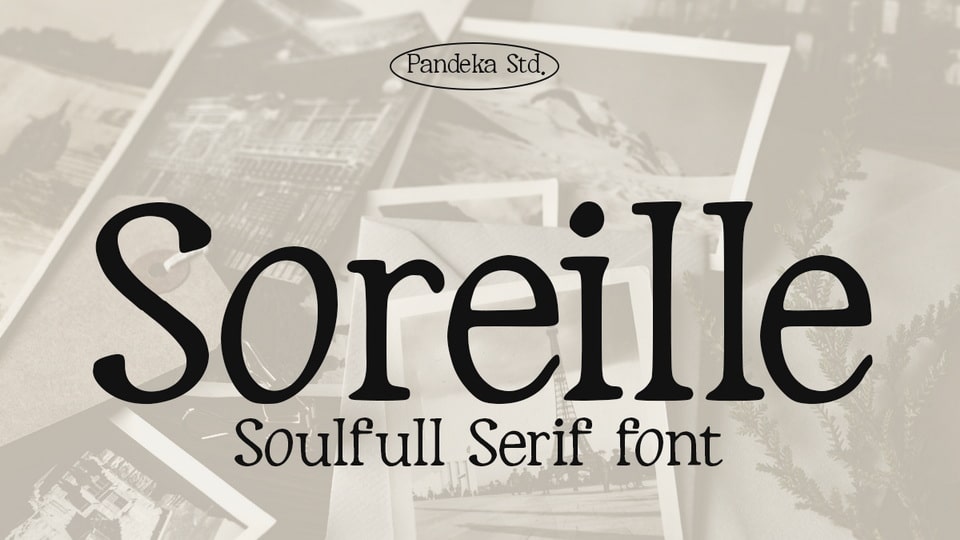
Download Soreille font, a soulful serif typeface that blends bold letterforms with soft, rounded edges, evoking a warm aesthetic and timeless design inspired by the 90s retro era.